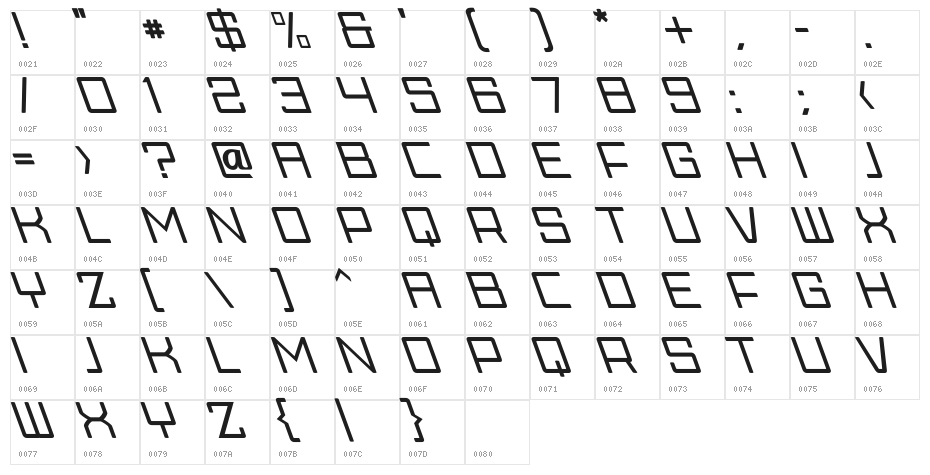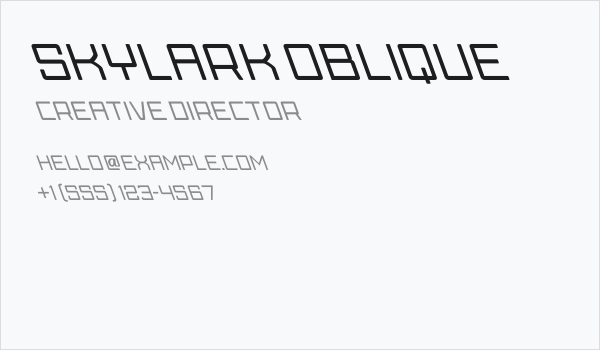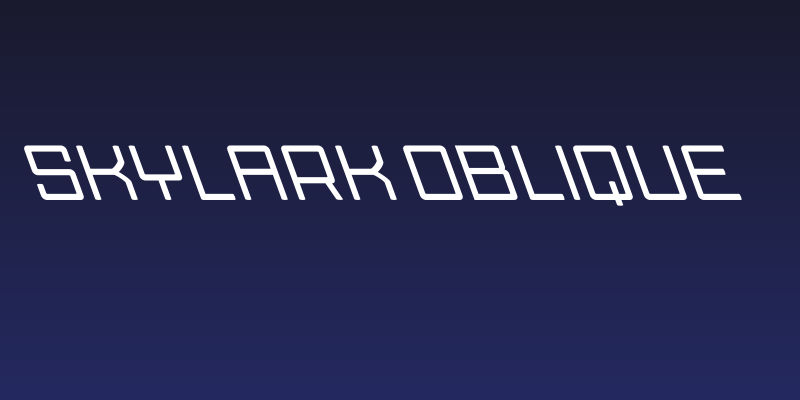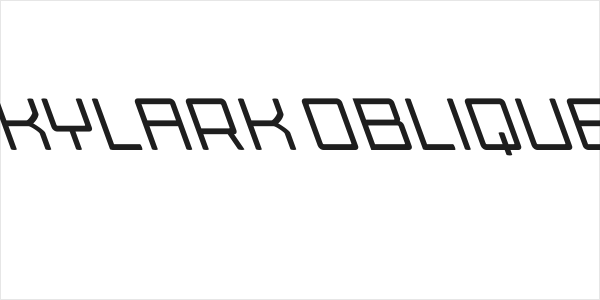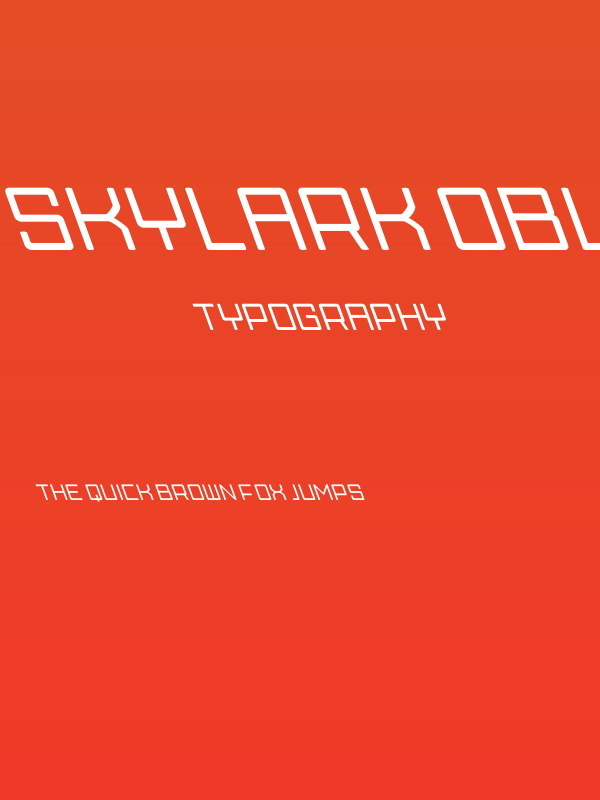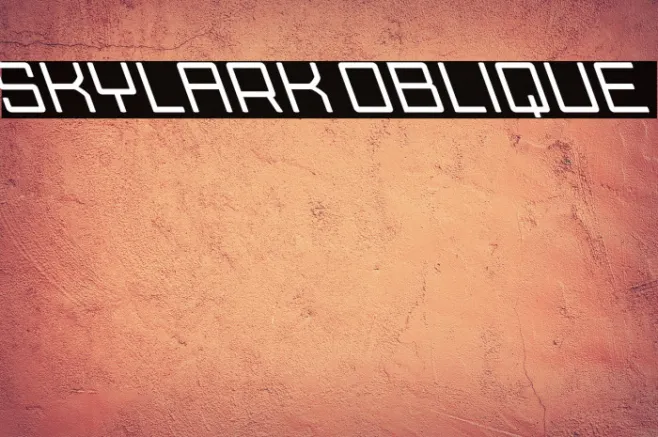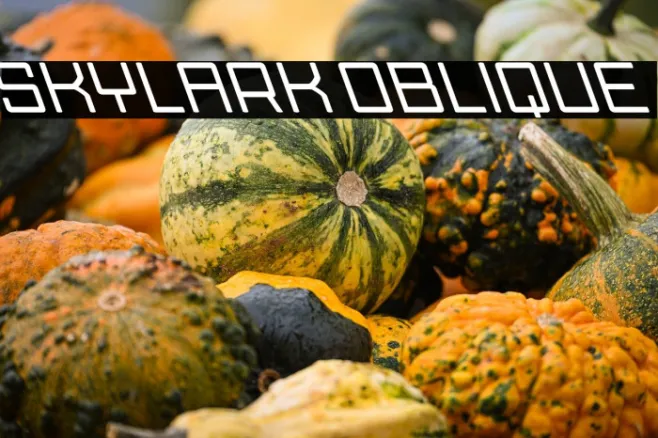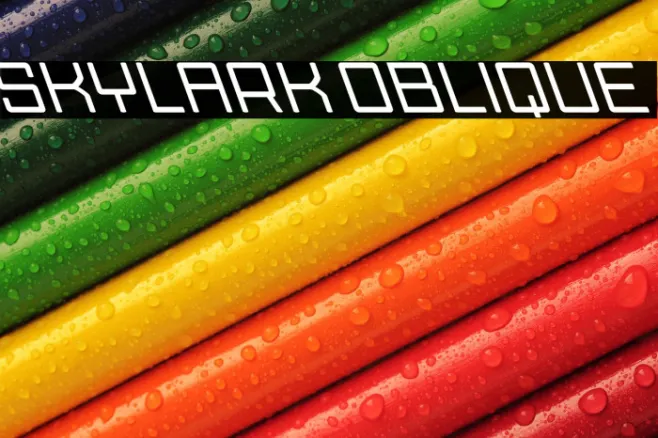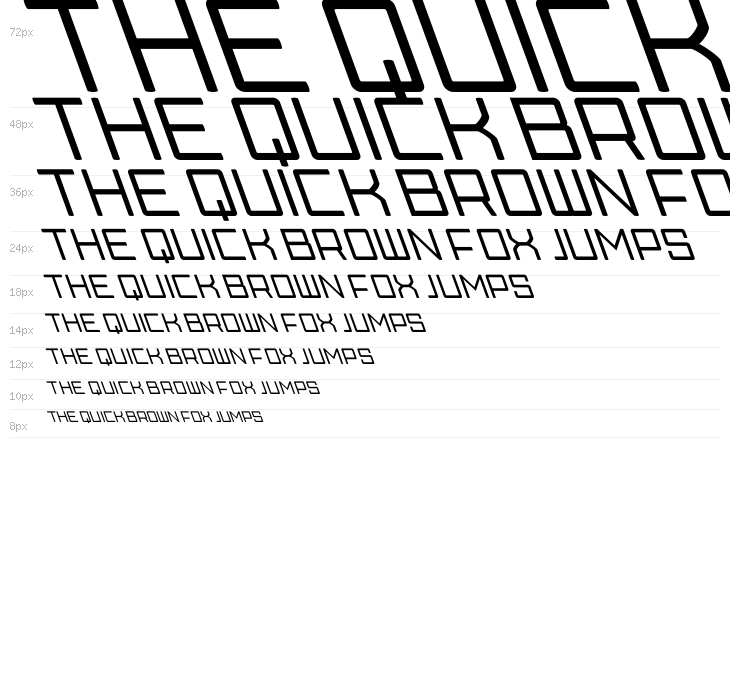
Skylark Oblique Font
Skylark Oblique Description
This font features a modern, geometric style with a distinct oblique slant, giving it a dynamic and forward-moving appearance. The characters are constructed with clean, straight lines and sharp angles, creating a sense of precision and efficiency. The uppercase and lowercase letters maintain a consistent height, contributing to a uniform and cohesive look. The numerals and special characters follow the same design principles, ensuring a harmonious overall aesthetic. The font's structure is both functional and stylish, making it suitable for a variety of design applications.
| Proposed Projects | Ideal for technology branding, modern advertising, and futuristic design projects. |